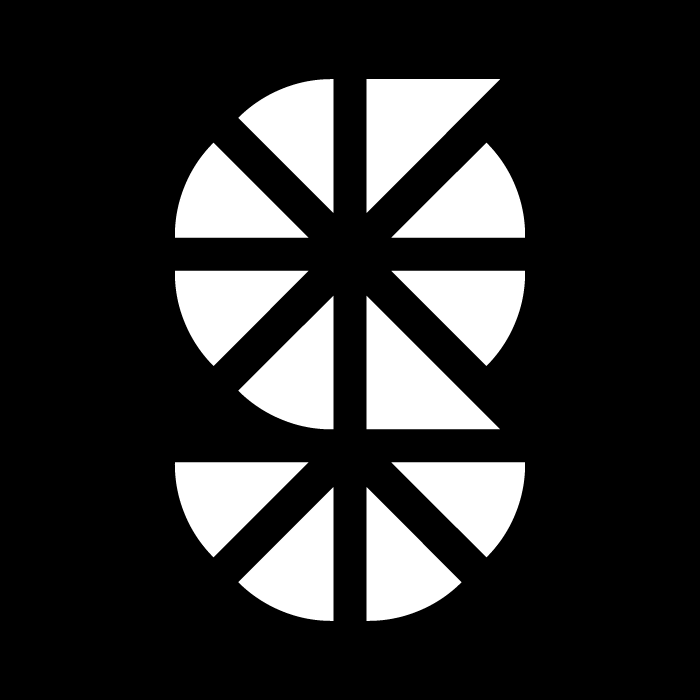
It's named the "pizza" brick... ;)
Also, the 8 is nice...
Yeap, you're right. I actually did do my research and searched for that blog post where these bricks were announced and they were mentioned as "pizza-slice" bricks. But I still used "a pie" termin, think it fits too.